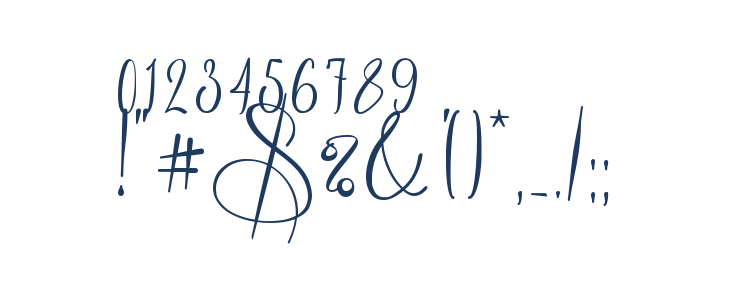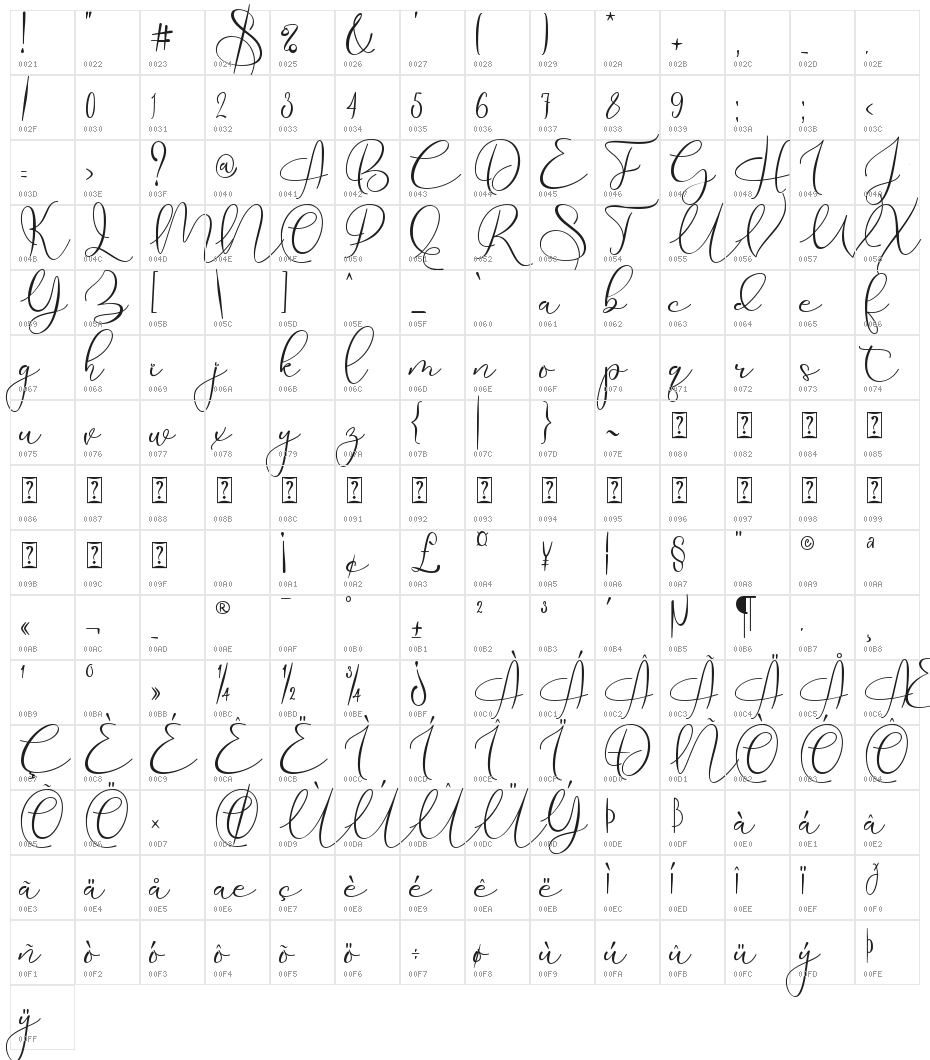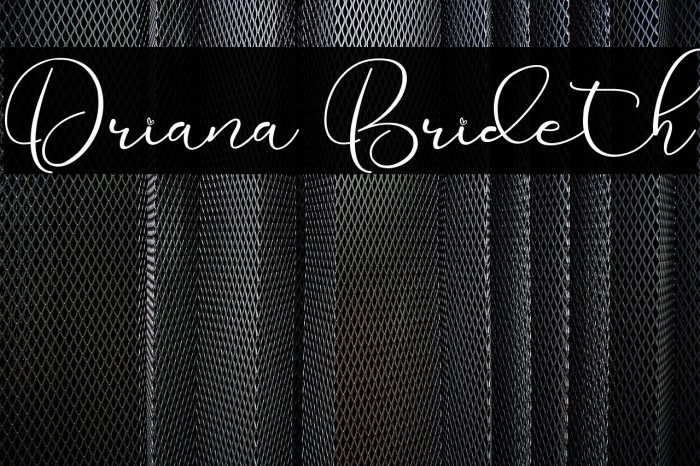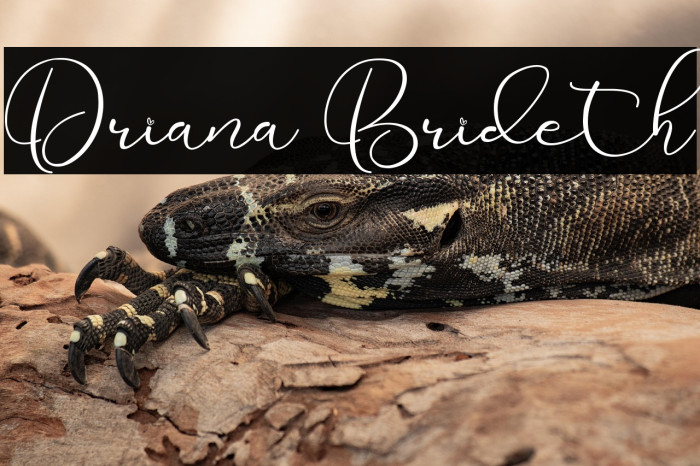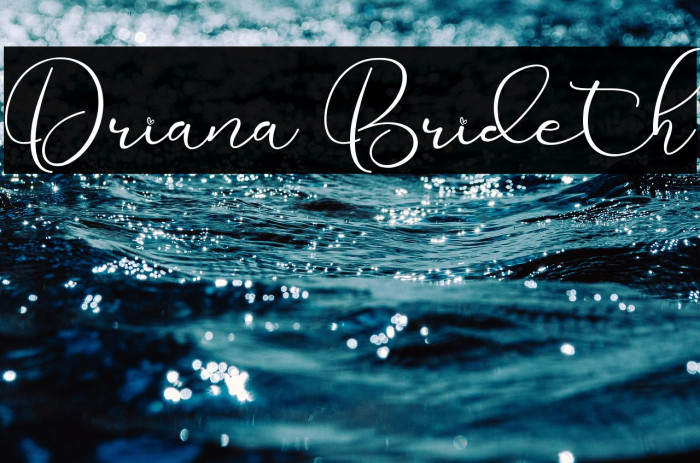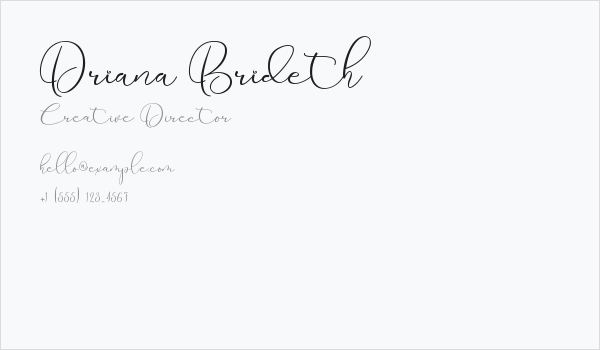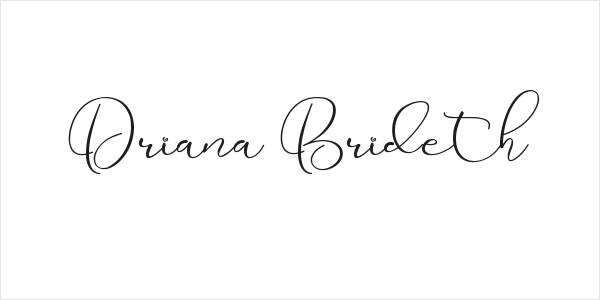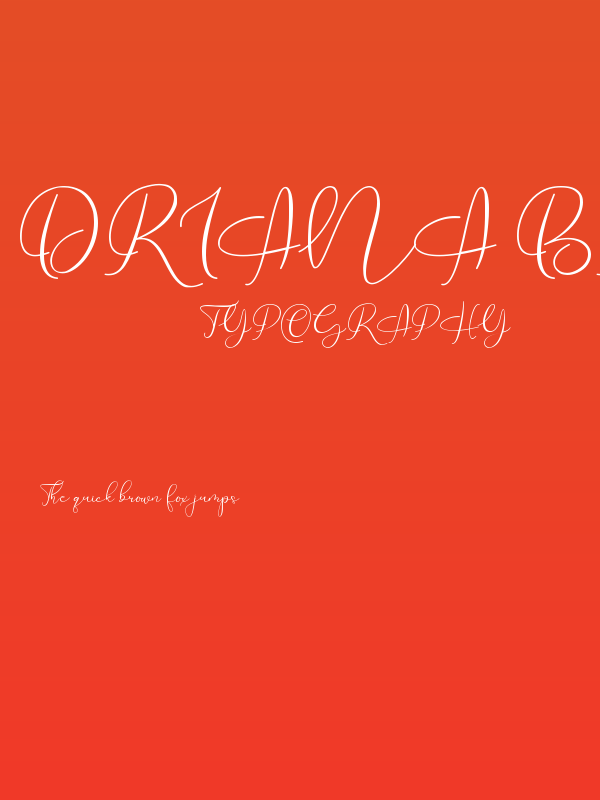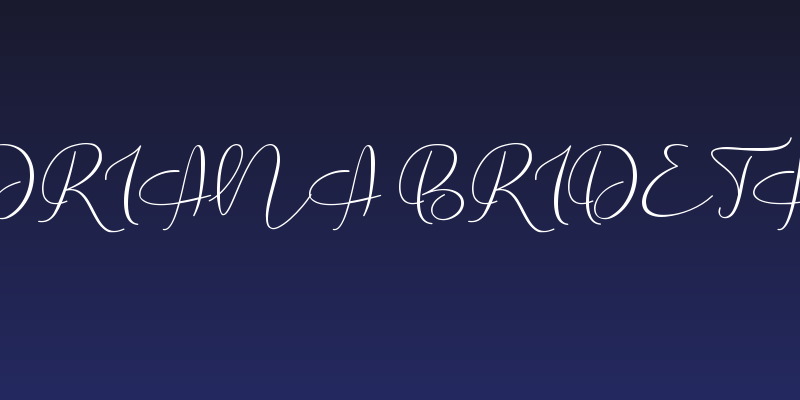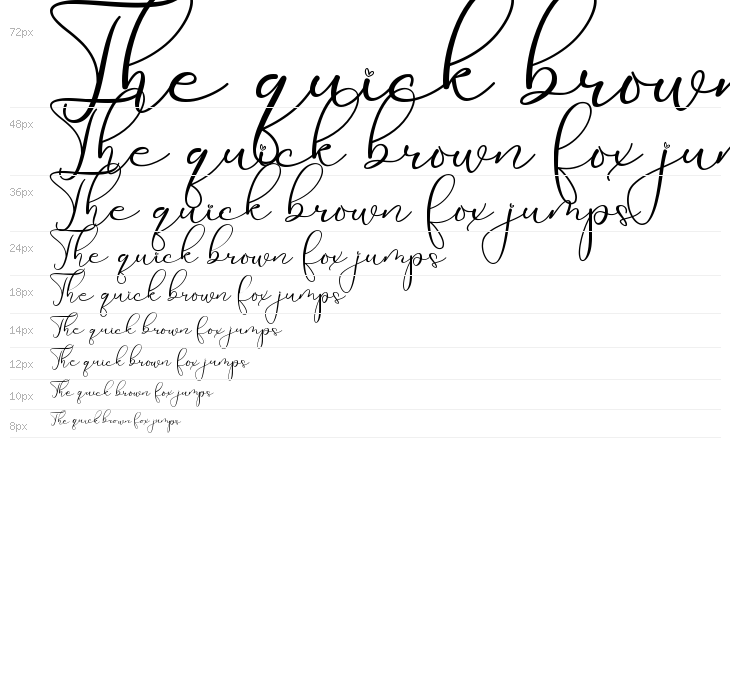
Driana Brideth Font
| Stile generale | Elegant |
| Caso d'uso | Invitations, Branding, Stationery |
| Progetti proposti | Ideal for wedding invitations, luxury branding, elegant stationery, and formal event materials. |